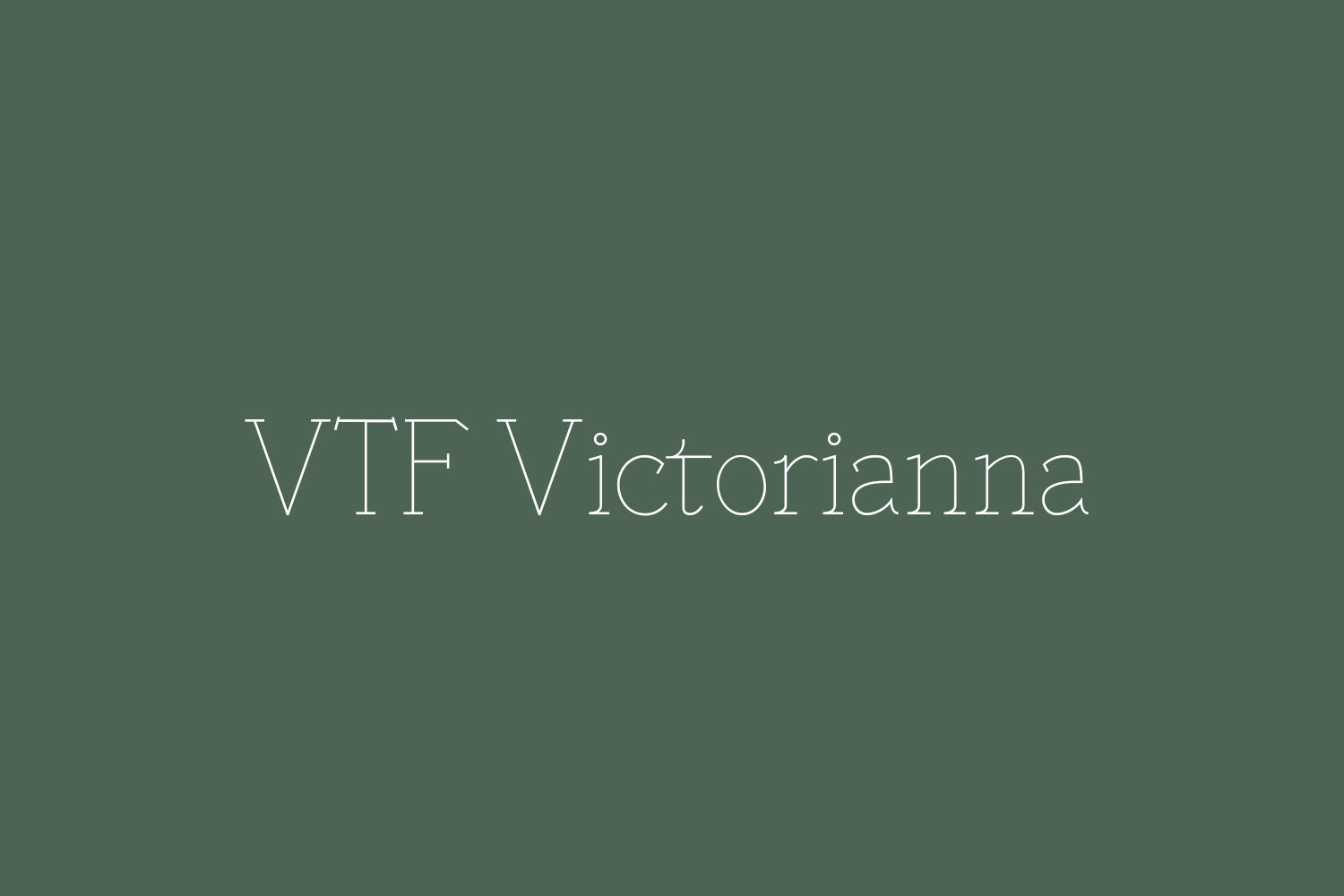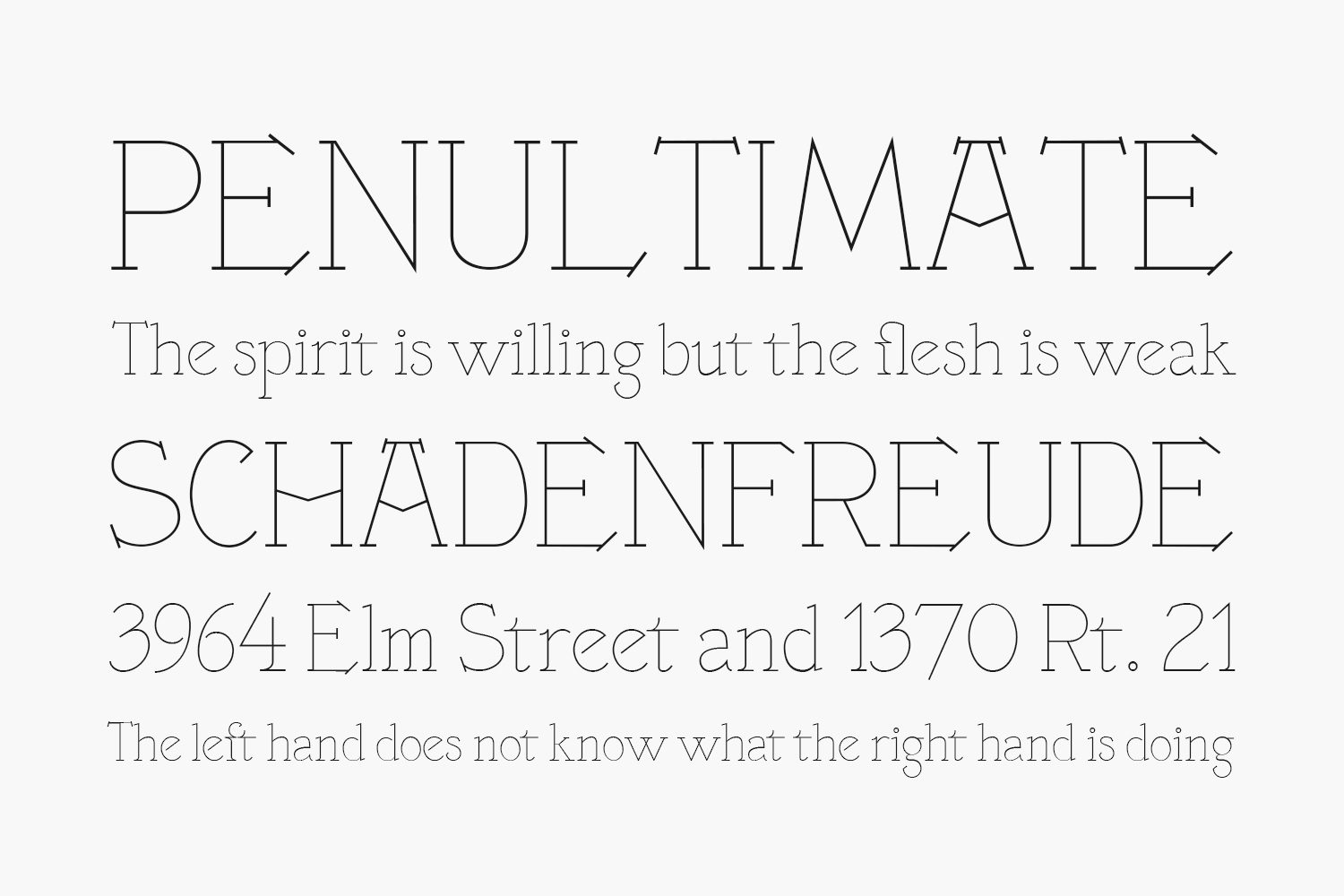
Thin roman & italic font, inspired by English Victorian types. Thin roman: 3 titling styles on caps, ligatures on lower cases. Thin Italic: many ligatures on lower cases. This font family is free for both personal and commercial purposes.
Designed by Velvetyne